Express yourself with custom fonts
Custom fonts are a key part of a designer’s toolkit, and now, you can easily add your own to any Linearity project.
Until now, importing custom fonts on iOS has been tedious, particularly on iPads. However, we’ve listened to your struggle and solved your font frustrations with our latest release. You can now design and animate using your preferred typography in a way that’s smooth, intuitive, and integrated right within our software.
How to add custom fonts
This update is a game-changer for designers who want to express their unique style and brand identity through typography, without being limited by platform restrictions. Now, you can easily add fonts that match your brand's vision, giving you more control over your creative output.
Whether you’re working from your Mac, iPad, or iPhone, it’s easy to upload and manage your fonts directly in Linearity Curve or Move, without the need for third-party apps.
Easy import process
We’ve made importing fonts incredibly straightforward. A new button located in the font selector in the Inspector allows you to upload fonts with just a click.
This simple addition dramatically improves your design experience, making it faster and easier to add any text style to your projects.
Multi-font import
Have multiple fonts you love? Now, you can import several fonts at once, without any extra steps. This speeds up your workflow and allows you to stay focused on the creative process.
Comprehensive file support
Cross-device syncing
Yep, that’s right. All new fonts are synced across your devices, allowing you to spend less time on technical hurdles and more time on creating.
Preview and search fonts effortlessly
Finding the right font for your design is soon to be much quicker and easier, thanks to the addition of the new Font Picker. It will let you preview fonts instantly by simply hovering over them in the list, or using the arrow keys to navigate through options. This upcoming update helps you visualize your design effortlessly, speeding up your creative workflow and ensuring you get the perfect look without the guesswork.
On-trend fonts we love
Now that importing custom fonts is a breeze, your creative possibilities are virtually limitless. We understand that choosing the perfect font can feel a little overwhelming, so we’ve curated a list of our favorites from Dinamo Typefaces to help you get started.
Arizona
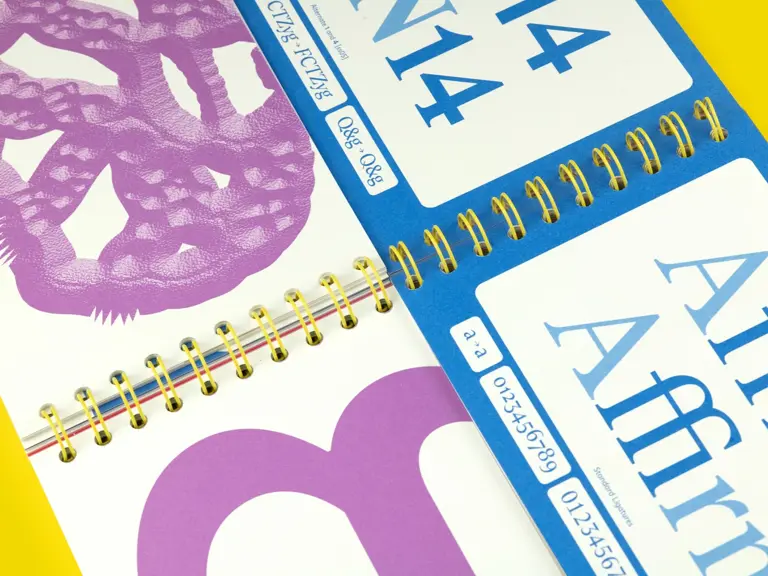
ABC Arizona is Dinamo’s first 'superfamily' font that combines five styles—Serif, Text, Mix, Flare, and Sans—into a single, downloadable file. This all-in-one, modern and fresh font is versatile and adaptable to any design project.
Gravity
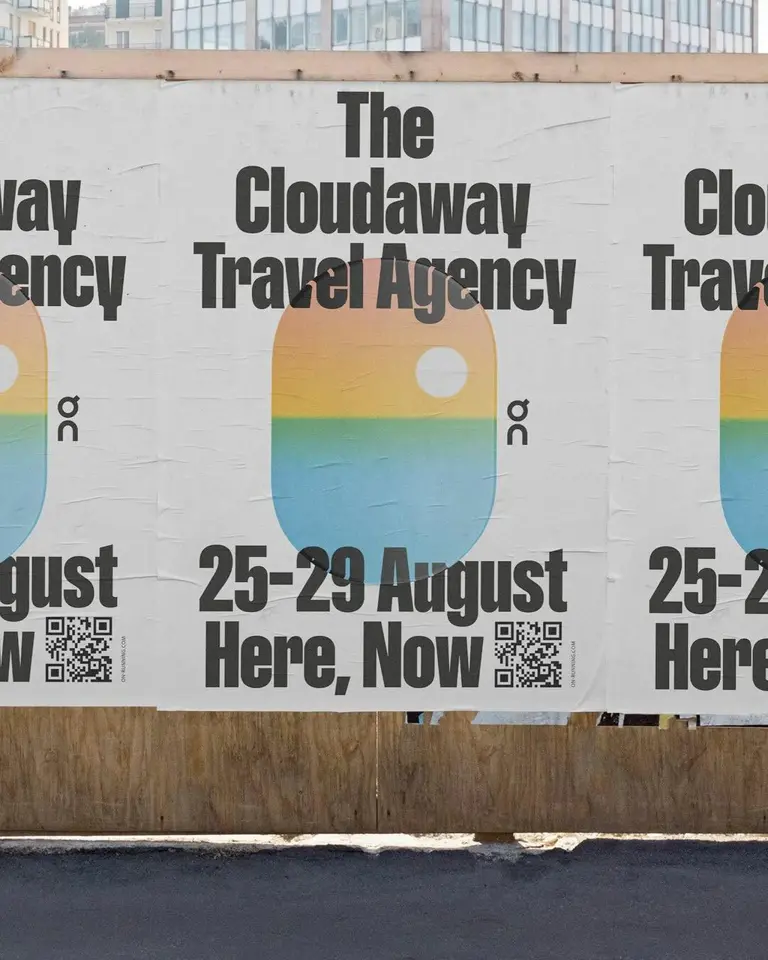
ABC Gravity is an eye-catching headline font with a variety of stylistic alternates for playful layouts. Its design is inspired by bold grotesque typefaces of the ’60s and ’70s, which have been compressed and stretched into extreme widths.
With this font, you can play around with character positions—make them jump above the baseline or hang from the top—to create bold effects.
Diatype
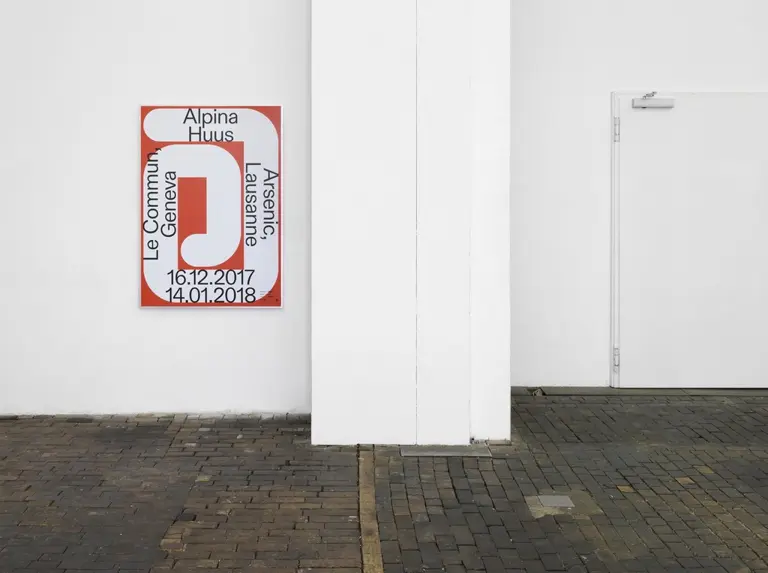
Diatype is a warm yet sharp typeface designed for readability on screens. Its name pays homage to the pre-digital typesetting machines that inspired its forms and the broader Swiss Neo-grotesque style.
Whyte
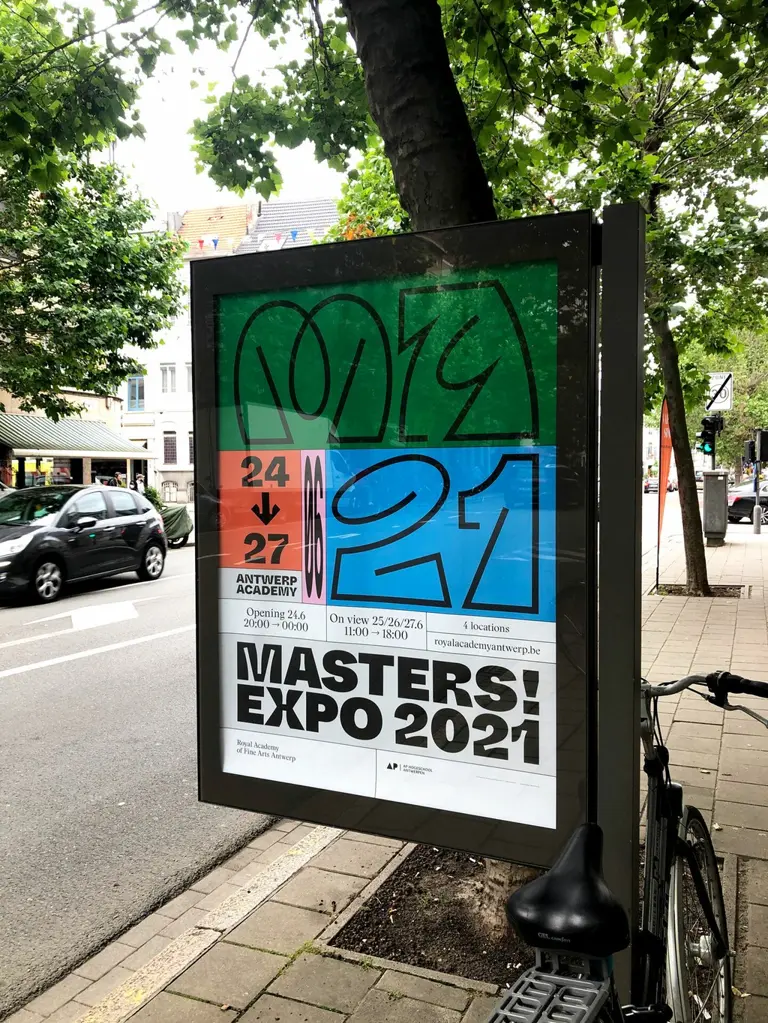
The original ABC Whyte font drew inspiration from a classic grotesque type sample discovered in archival research. Recognizing its lasting appeal, Dinamo's lead designer Erkin Karamemet developed a modern variable version, ABC Whyte Inktrap.
The two styles bring their own vibe—ABC Whyte has clean, sharp transitions, while ABC Whyte Inktrap adds character with bold ink traps at each joint. Both families come in 10 weights, each with italics, making up 40 font styles in total, plus loads of punctuation and currency options for international flexibility.
Oracle
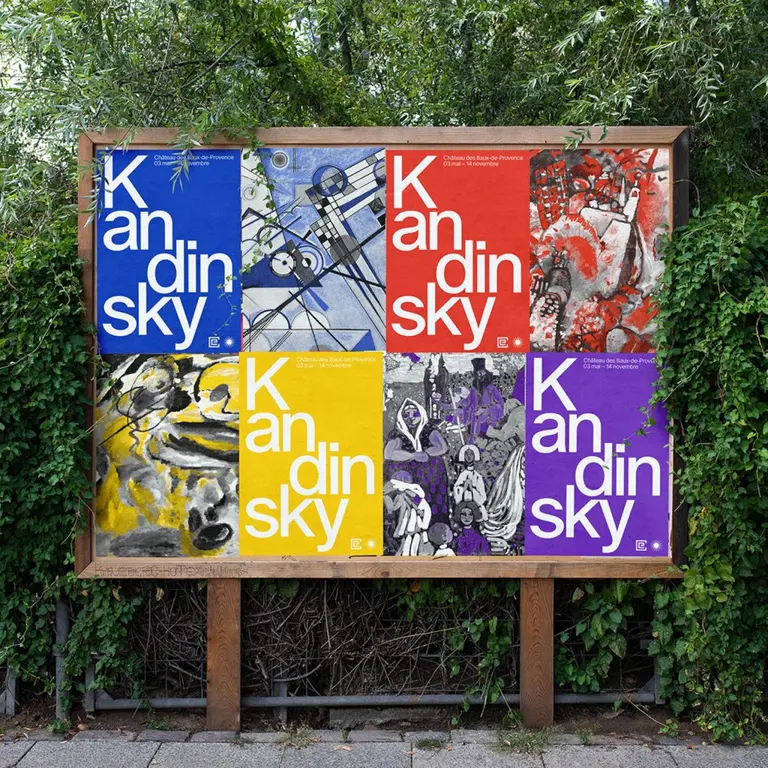
Dinamo describe Oracle as “two families that began in the same place but wandered off in entirely different directions.”
Oracle's first font family is a refined, sans-serif typeface with smooth, friendly curves. It includes six different weights and italics, offering plenty of customization options with various alternate characters and styles.
Oracle Triple, on the other hand, is playful twist on a classic design. It takes the idea of monospaced fonts and breaks the bounding box into thirds, which means different characters can take up different amounts of space.